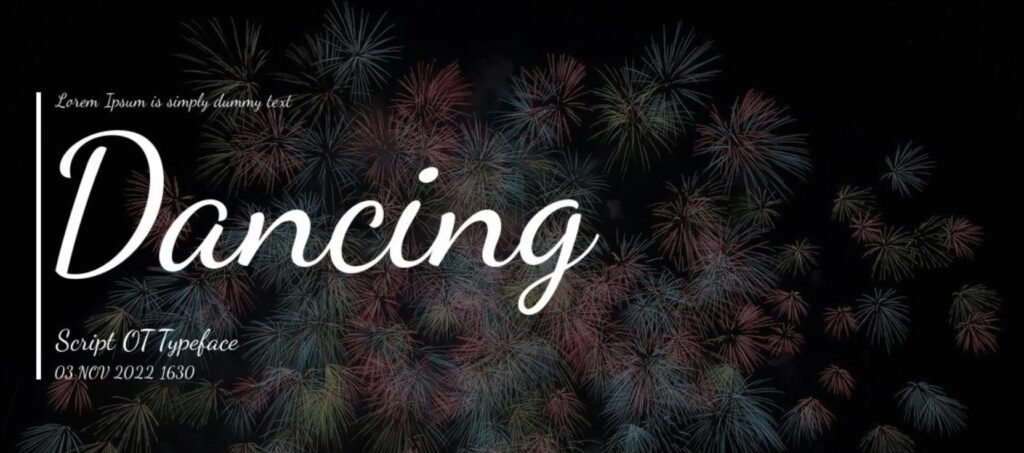
The Dancing Script OT Font has gained popularity for its stylish cursive inscription because of its appeal and charm. Whether you are a graphic designer, branding professional, web developer, or even an ordinary user looking to enrich your personal projects, this font provides beautifully legible cursive that can bring your designs to life.
What is Dancing Script OT Font?
Dancing Script OT Font is a bold handwriting font that was created by Pablo Impallari. The font draws from the bouncy and playful lettering styles of the 1950s and is derived from brush scripts that were in vogue in that period. Dancing OT Font is an OpenType (OT) font which guarantees wide support and advanced typographic options.
Because the font is a blend of nostalgia and modernity, it does effortlessen tasks such as casual and professional usages. It’s Now considered a mainstream font in the professional field due to its freeness on Google Fonts that allows access for web and print projects printed.
Dancing Script OT Font is fine for the creation of elegant logos or invitations and adds a charming touch to social media posts where personalization is a goal, thus being very easy to personalize.
Features of Dancing Script OT Font
Below are the features that differentiate the Dancing Script OT Font:
- OpenType (OT): Offers additional typographic options which enhance the overall design flexibility such as stylistic alternates and ligatures.
- Multiple Weights: The font is available in Regular, Medium, and Bold weights which increases range and versatility for many types of content.
- Elegant Bounciness: real-life handwriting energy rises and falls, therefore the font provides an energetic yet refined feel.
- Well Designed: The fonts renders well across all modern browsers, making it useable in web projects.
- Multilingual Support: Includes characters of other Latin based languages, making it useful for international projects.
Applications of Dancing Script OT Font
The Dancing Script OT Font is incredibly versatile and can be used in various types of design work:
- Wedding Invitations & Greeting Cards
Ideal for romantic or celebratory designs, the flowing and elegant script style adds a personal touch to invitations, greeting cards, and event signage.
- Personal Branding
Perfect for logos, nameplates, and influencer content, the unique, friendly style of the font helps create memorable, distinctive branding.
- Social Media Graphics
Add personality and charm to your social media posts, quotes, captions, and promotional graphics. Dancing Script OT’s lively cursive brings a fresh and stylish aesthetic to your feed.
- Blog Headers & Subtitles
For lifestyle blogs or casual content, Dancing Script OT can give your headlines and subheadings an informal, welcoming vibe without compromising legibility.
- Posters & Flyers
Great for events, parties, or casual branding, this font provides a fun, yet professional appearance to promotional materials like posters and flyers.
- Educational & Presentation Materials
If you want to add a personal touch to slides, handouts, or worksheets, Dancing Script OT offers an approachable, legible style that can make content feel more engaging.
Conclusion:Dancing Script OT Font
When crafting social media graphics or even self-branding projects, the Dancing Script OT Font is a lovely flowing script typeface. It provides charm, elegance, and legibility all at the same time.Apart from being user-friendly, it possesses multilingual support, smooth web integration, various weights, and can be applied to a multitude of tasks.